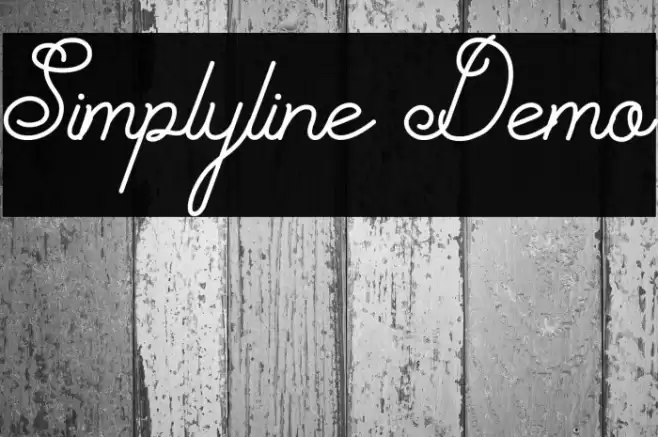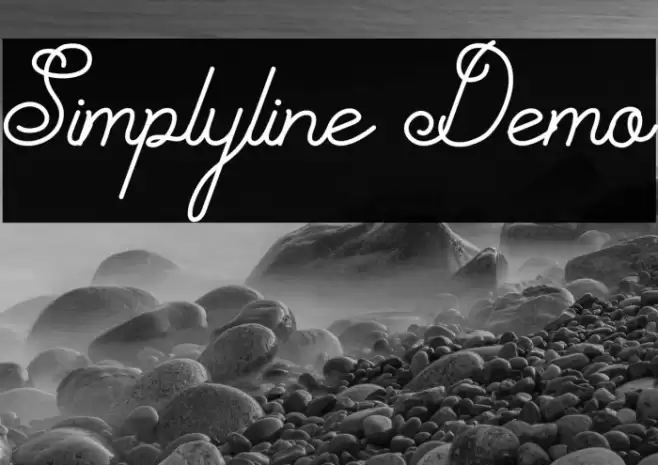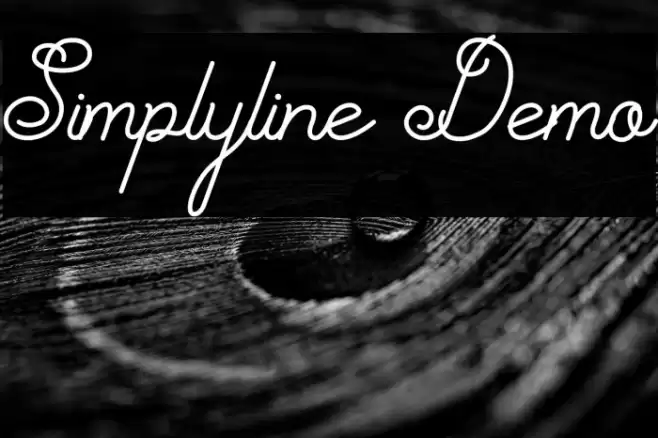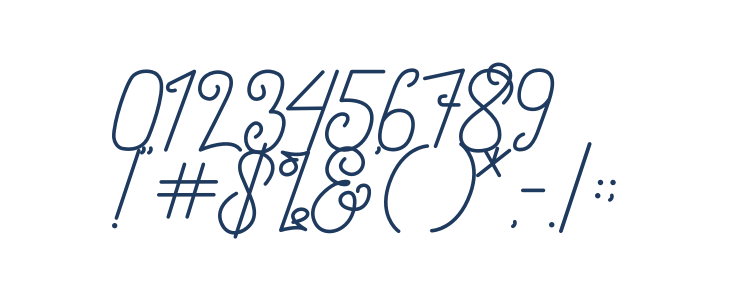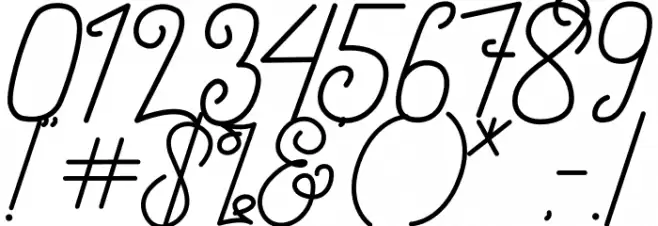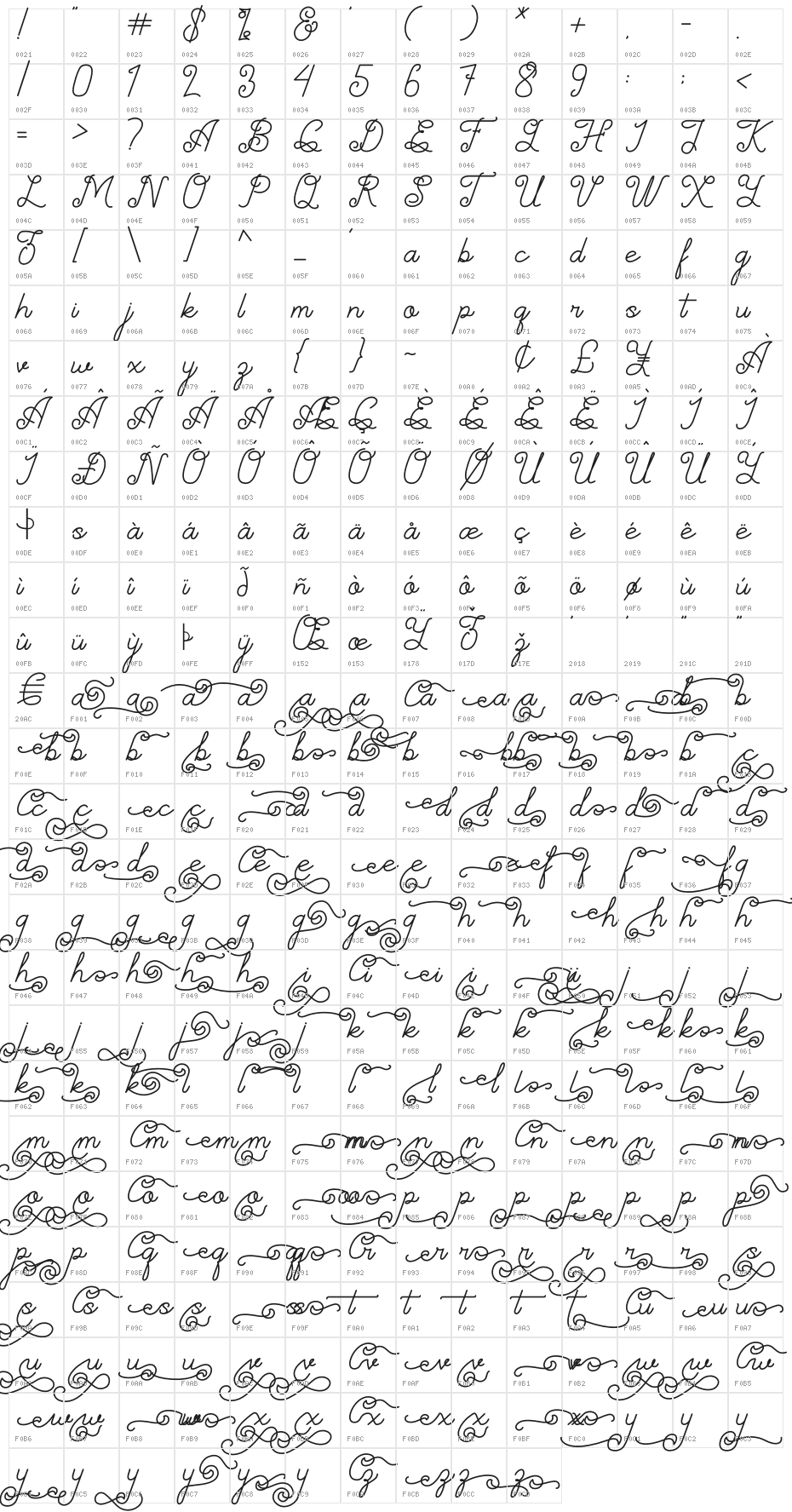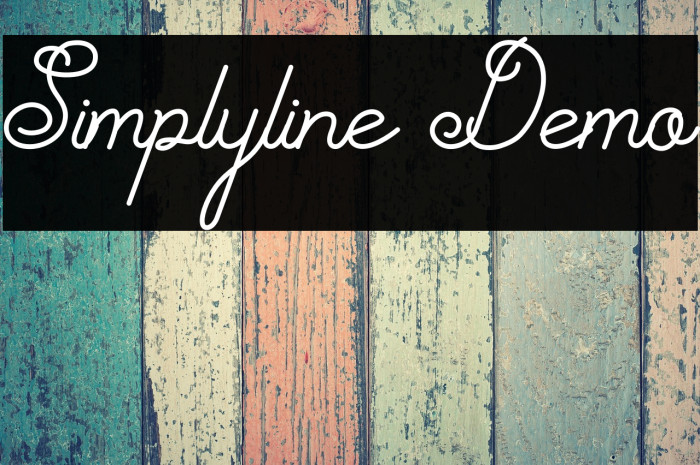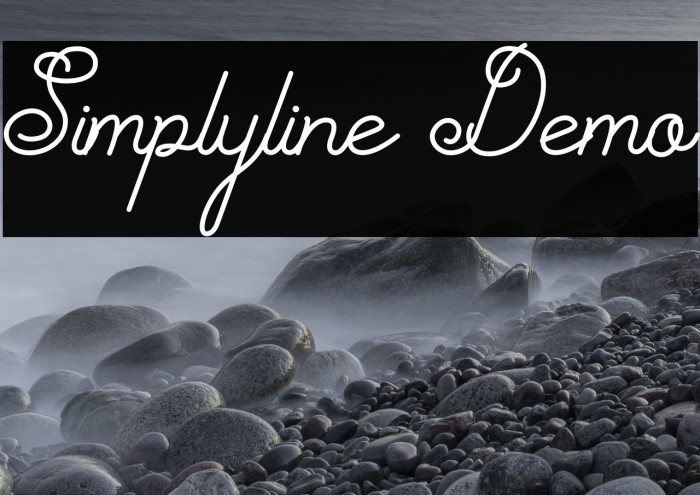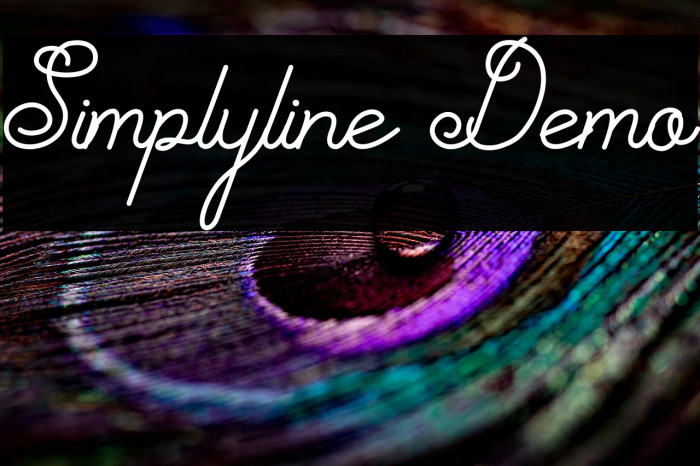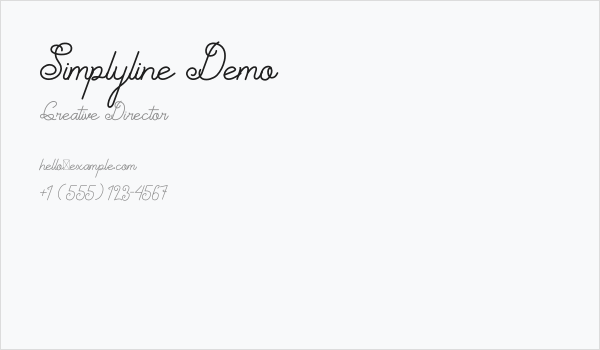
Simplyline Demo Font
Simplyline Demo Description
This elegant script font features a flowing, cursive style with interconnected letters that create a sense of fluidity and grace. The uppercase letters are ornate, with loops and swirls that add a decorative touch, while the lowercase letters maintain a more straightforward cursive form. The numerals and special characters are consistent with the overall script style, featuring similar loops and curves. This font exudes a sense of sophistication and charm, making it ideal for projects that require a personal, handwritten touch.
An elegant script font with flowing, interconnected letters and decorative loops from Regular fonts.